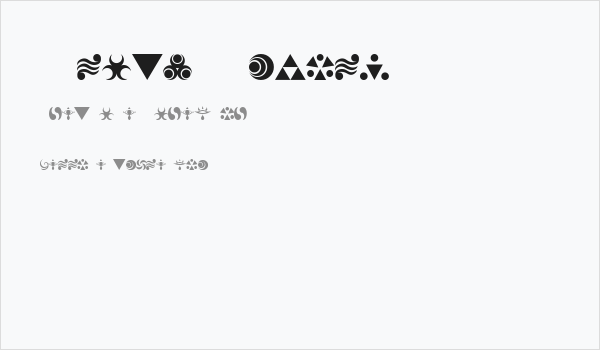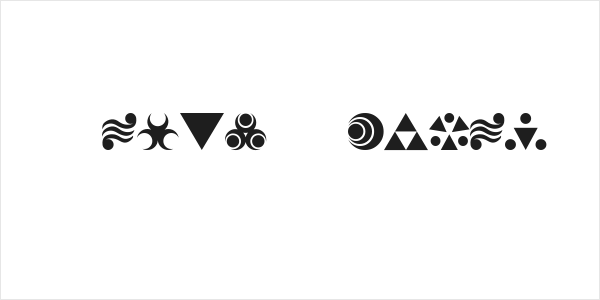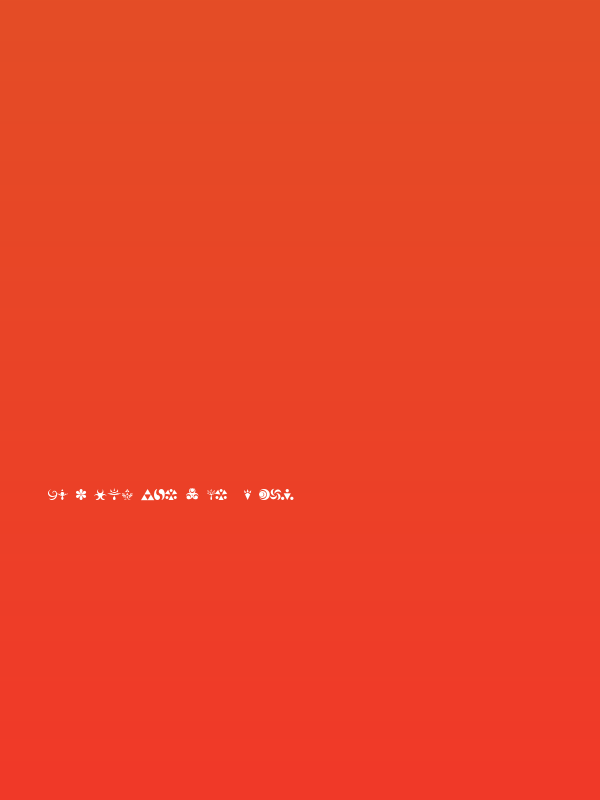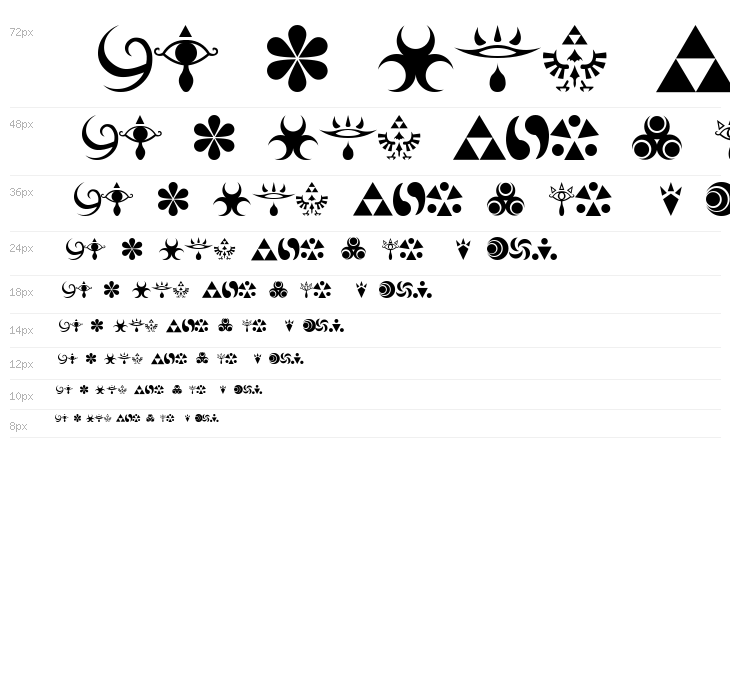
Hylian Symbols Font
Hylian Symbols Description
This collection of symbols features a variety of intricate and stylized designs, each with a unique and mystical appearance. The symbols are bold and striking, with a strong emphasis on geometric shapes and symmetrical patterns. The designs incorporate elements such as triangles, circles, and eye motifs, often combined with lines and curves that suggest movement and energy. The overall aesthetic is both ancient and otherworldly, evoking a sense of mystery and magic. These symbols are highly decorative and can serve as powerful visual elements in design projects.
| Overall Style | Mystical, Ancient, Decorative |
| Use Case | Logos, Decorative elements, Fantasy-themed designs |
| Proposed Projects | These symbols are ideal for use in fantasy-themed projects, such as game design, book covers, or branding for mystical or magical products. |